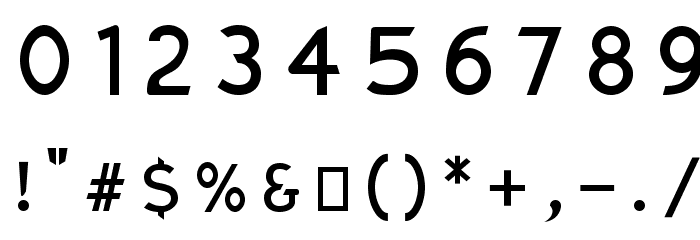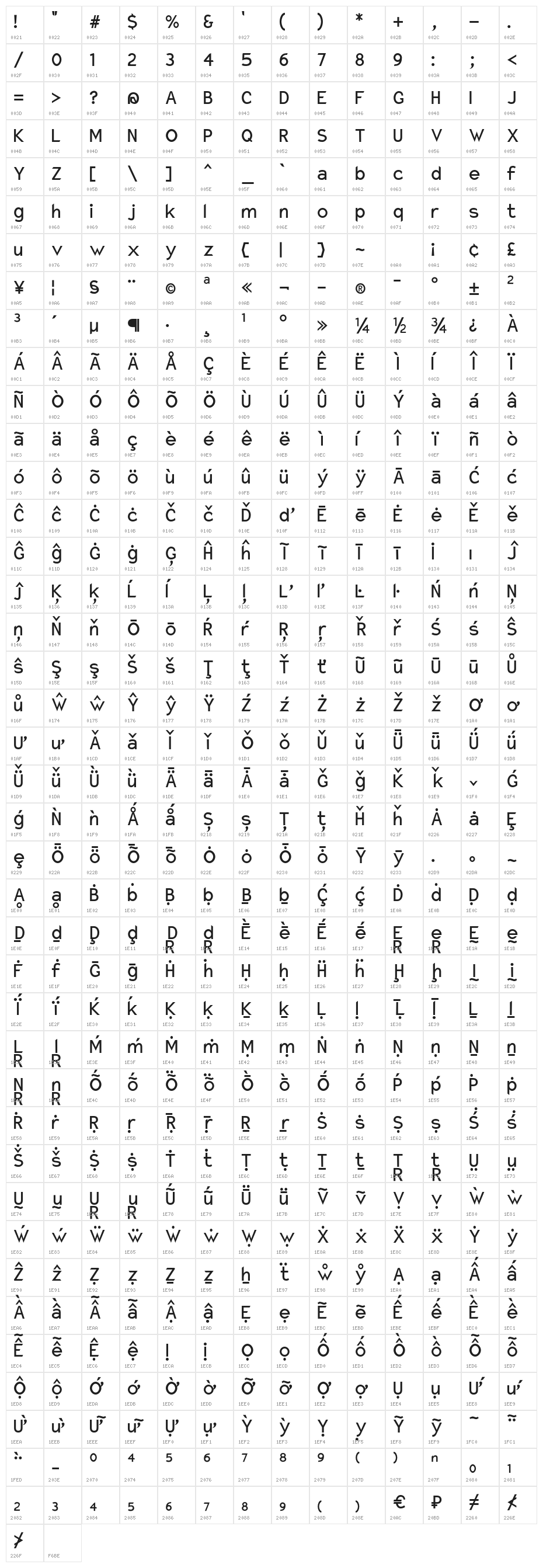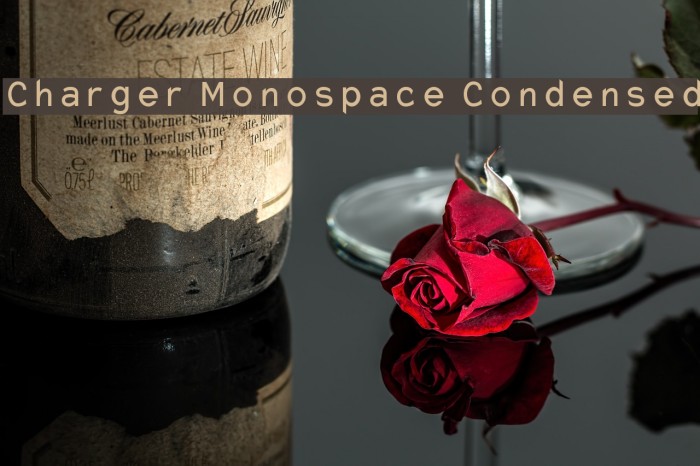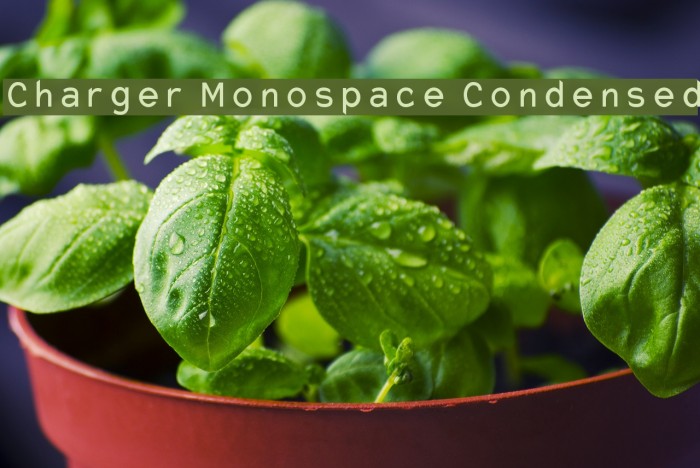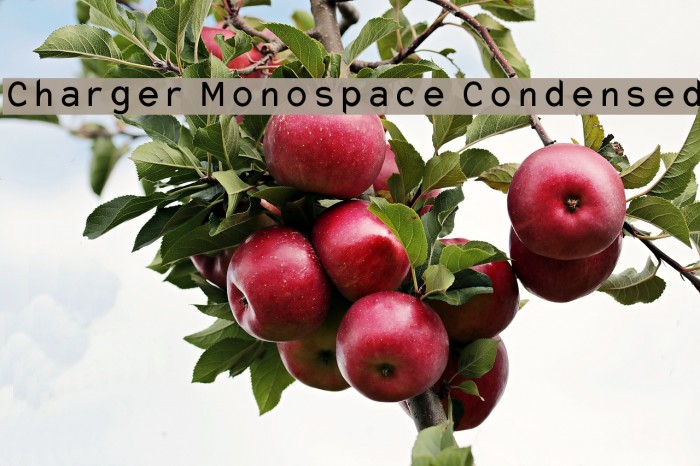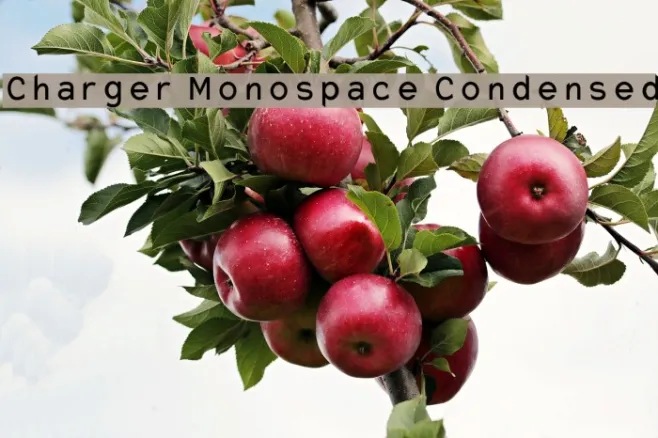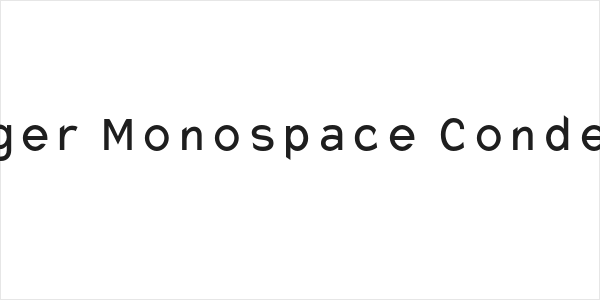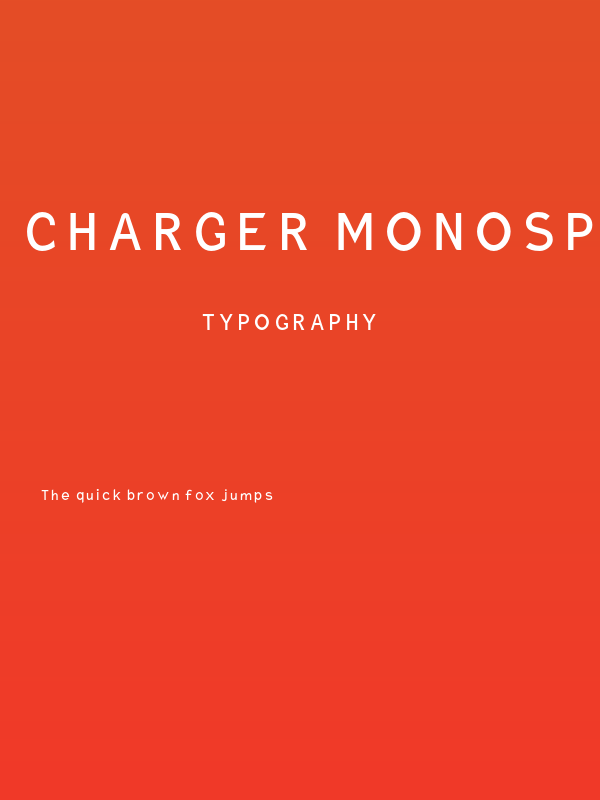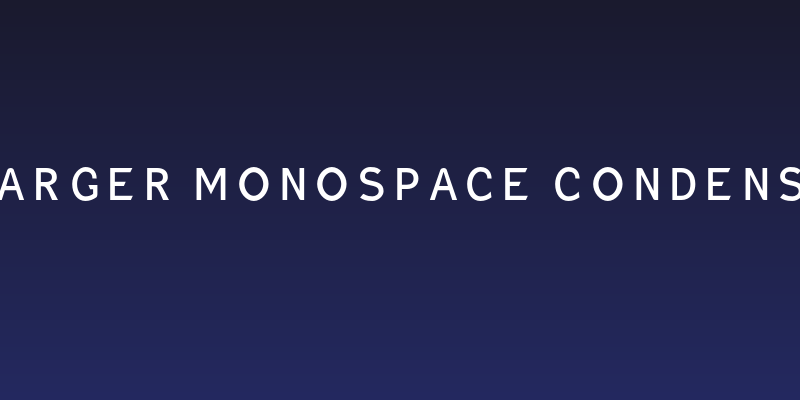
Charger Monospace Condensed Font
Charger Monospace Condensed Description
This font features a clean, modern design with a monospaced structure, ensuring each character occupies the same amount of horizontal space. The condensed form gives it a sleek appearance, making it ideal for environments where space is limited. The characters are well-defined with a consistent stroke width, providing a uniform and balanced look. The uppercase and lowercase letters maintain a harmonious relationship, while the numerals and special characters are distinct and easily readable. This font's simplicity and clarity make it versatile for various applications.